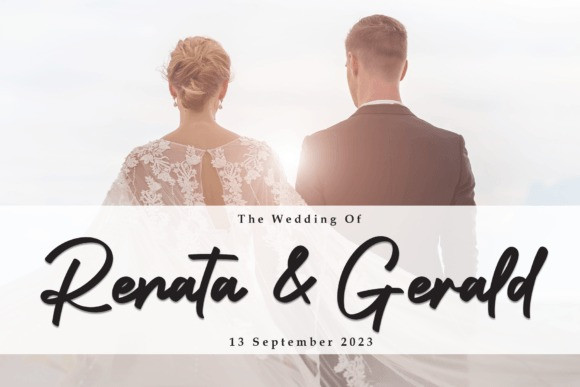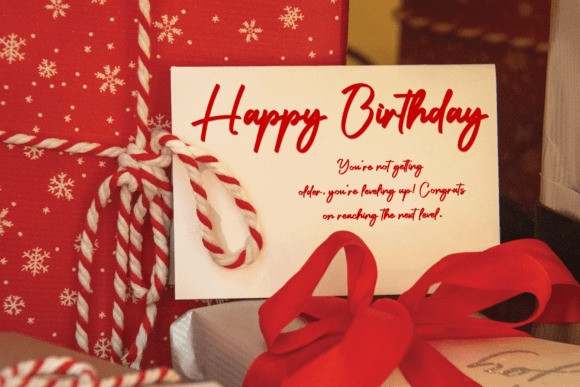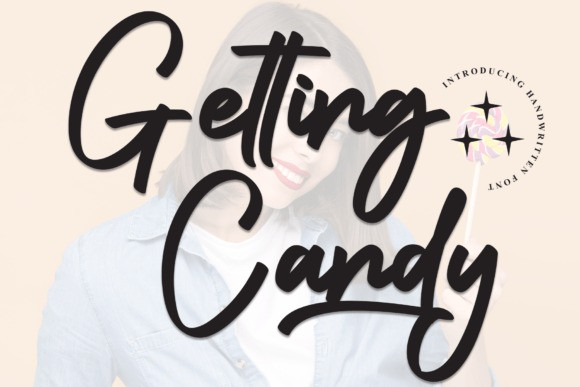
Getting Candy Font
Getting Candy Font is a sweet and friendly handwritten font. Its natural and unique style makes it incredibly fitting to a large pool of designs. The only limit is your imagination!